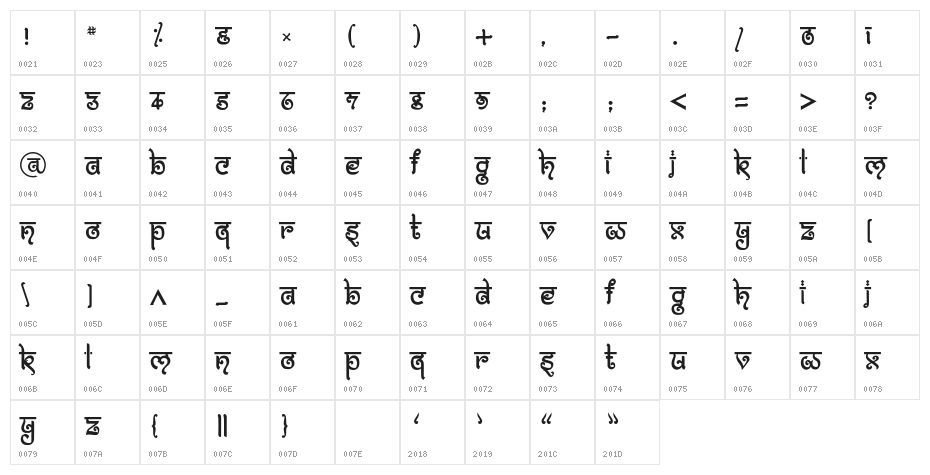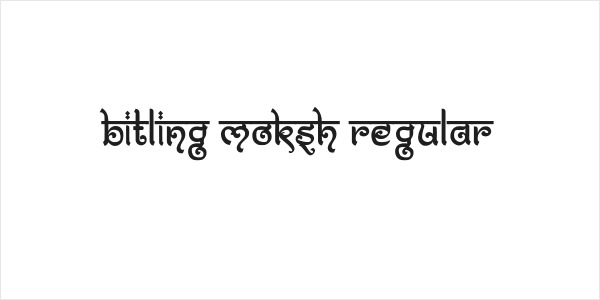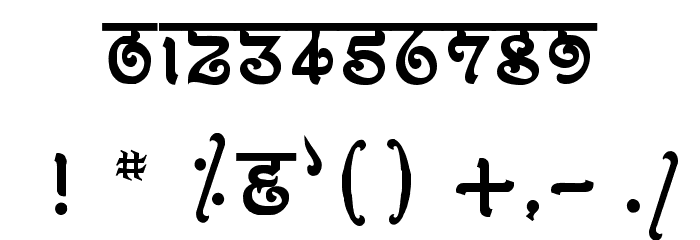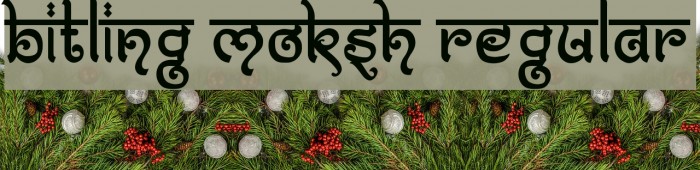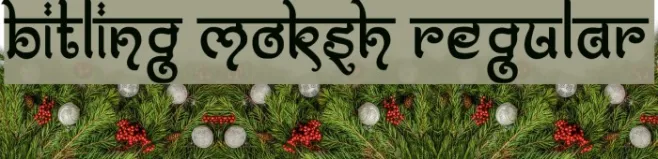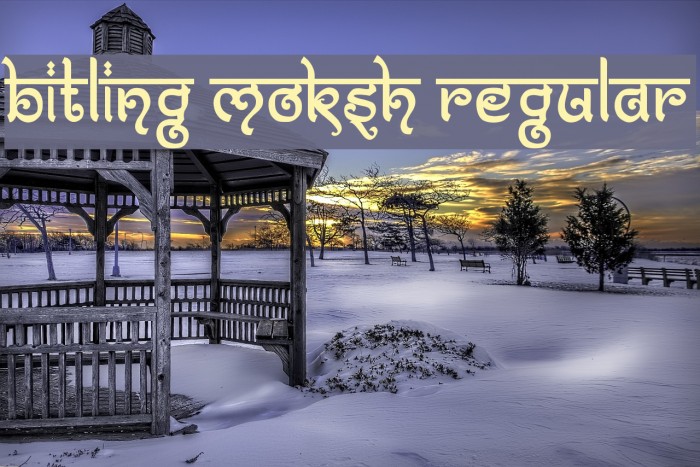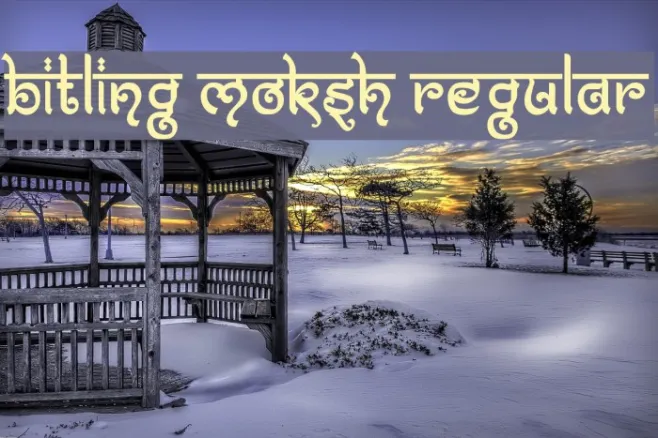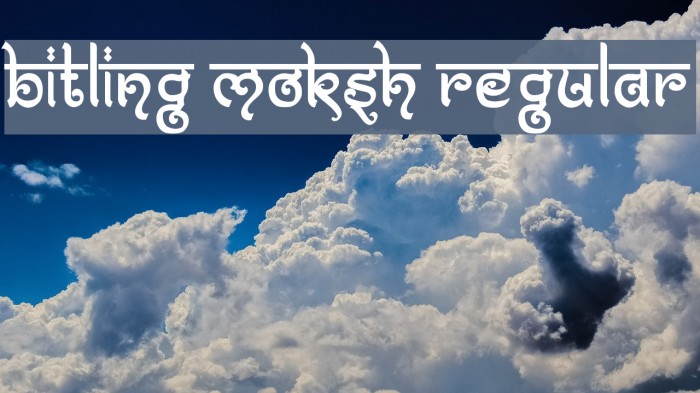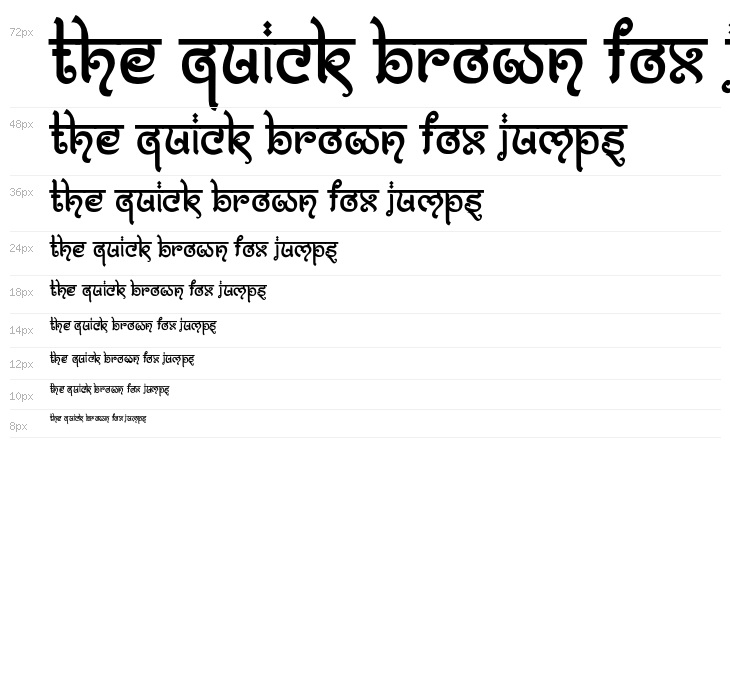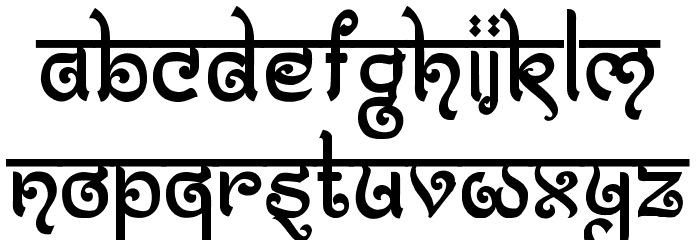
Bitling moksh Regular Font
Bitling moksh Regular Description
This font features a unique blend of traditional and modern elements, characterized by its decorative and intricate letterforms. The characters exhibit a distinct cultural influence, with ornate curves and flourishes that add a sense of elegance and sophistication. The uppercase and lowercase letters maintain a consistent style, with each character displaying a harmonious balance between form and function. The numerals are equally stylized, ensuring a cohesive appearance across all text. Special characters are thoughtfully designed, complementing the overall aesthetic. This font's artistic flair makes it suitable for projects that require a touch of cultural richness and visual interest.
| Proposed Projects | Ideal for cultural event posters, artistic book covers, and branding that requires a unique and sophisticated touch. |